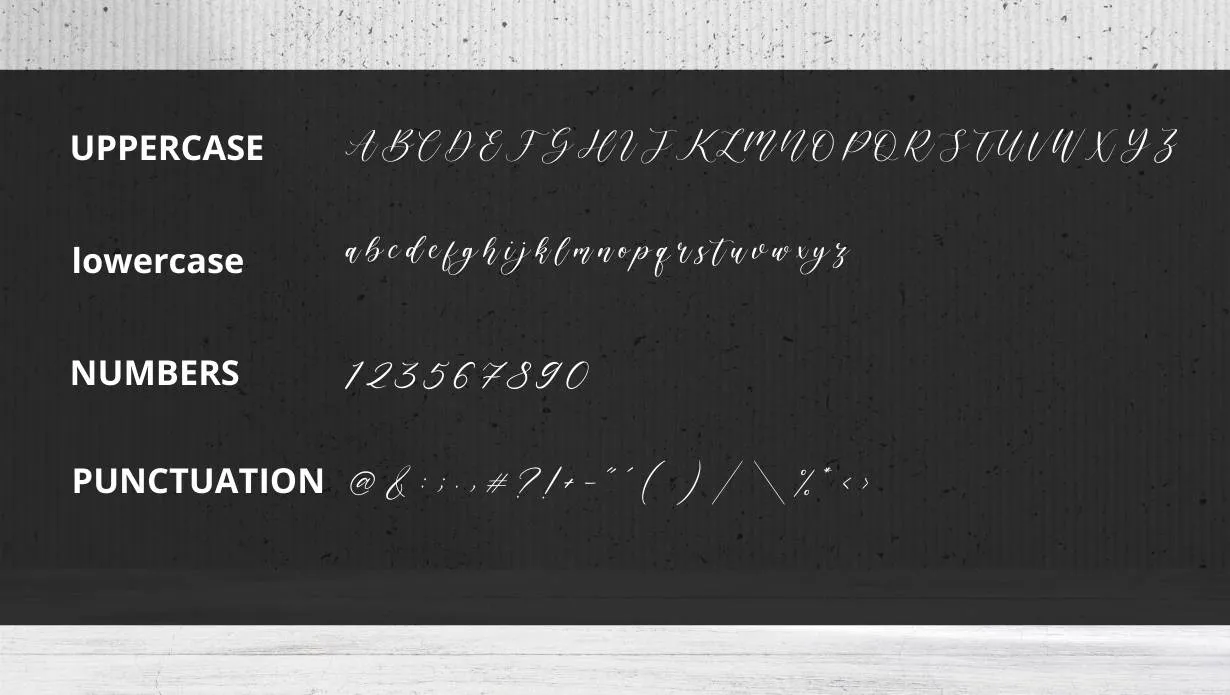
Elegante Font is a beautiful script font that can be used for various purposes. It has a unique design that makes it stand out from other fonts, and it is also very easy to read. Elegante Typeface was created by a German typedesigner in the early 1900s, and it has been used extensively throughout Europe ever since.
This font glyph is very ornate, and it can be used to add a lot of personality to your work. However, it’s important to use this font sparingly, as too much of it can make your work look cluttered. When used correctly, though, the Elegante Typeface can really make your work pop. Moreover, you can also alfa slab one font for your logos and other typography designs as well.
- Elegante Regular
View of Elegante Font
Elegante Font Info
| Name | Elegante Font |
| Designer | Balpirick Studio |